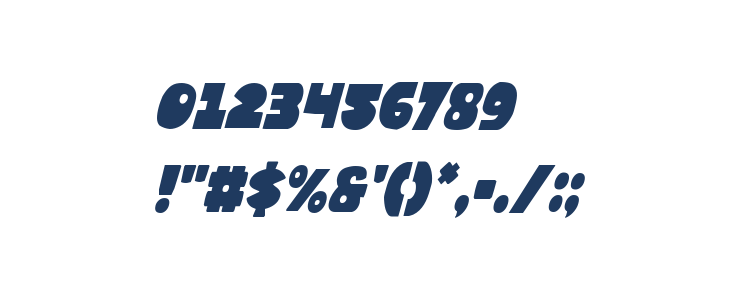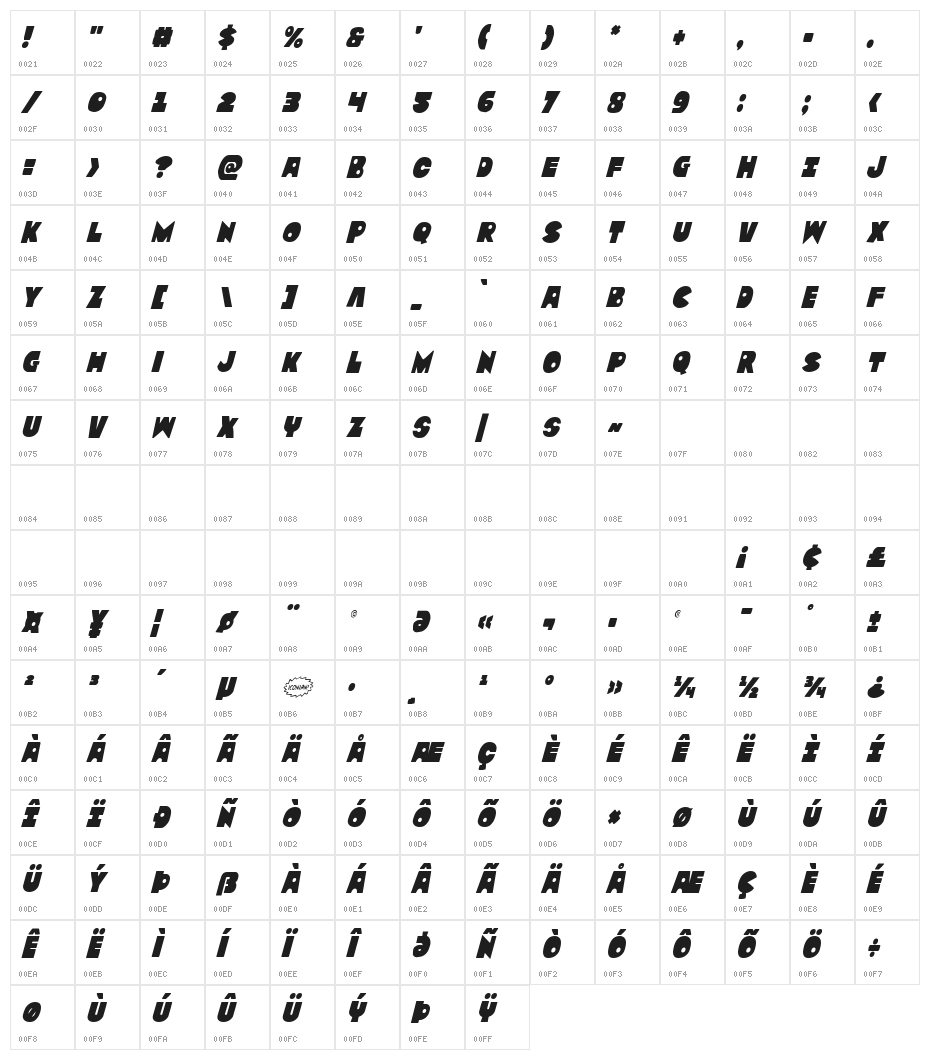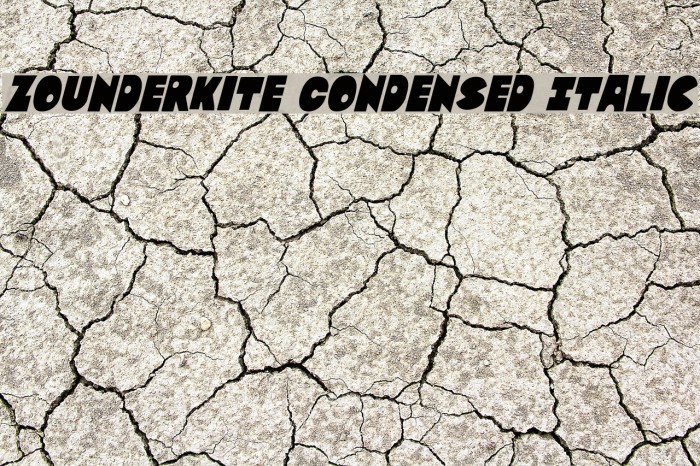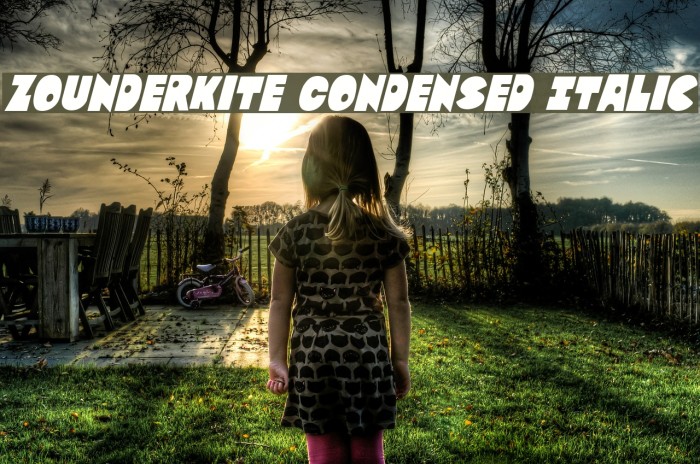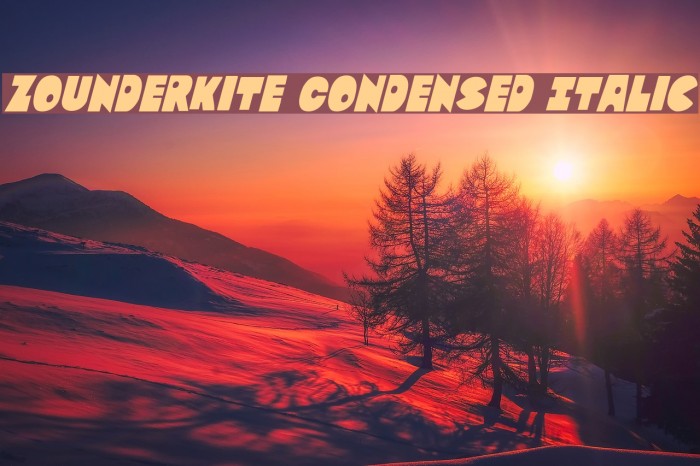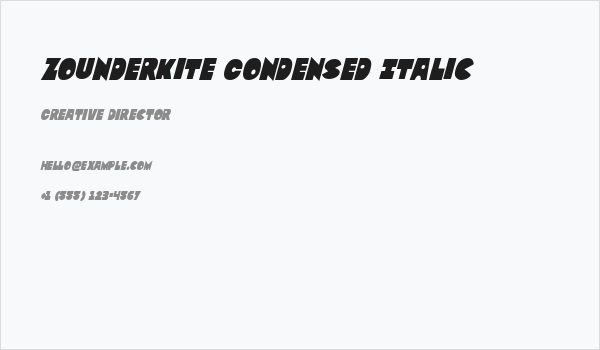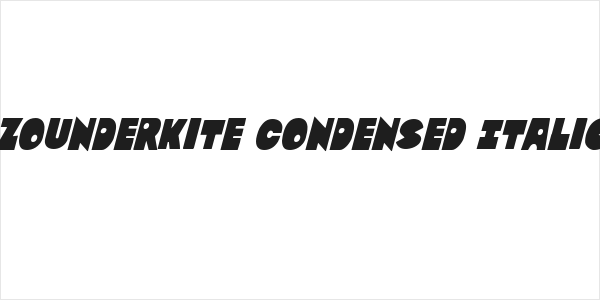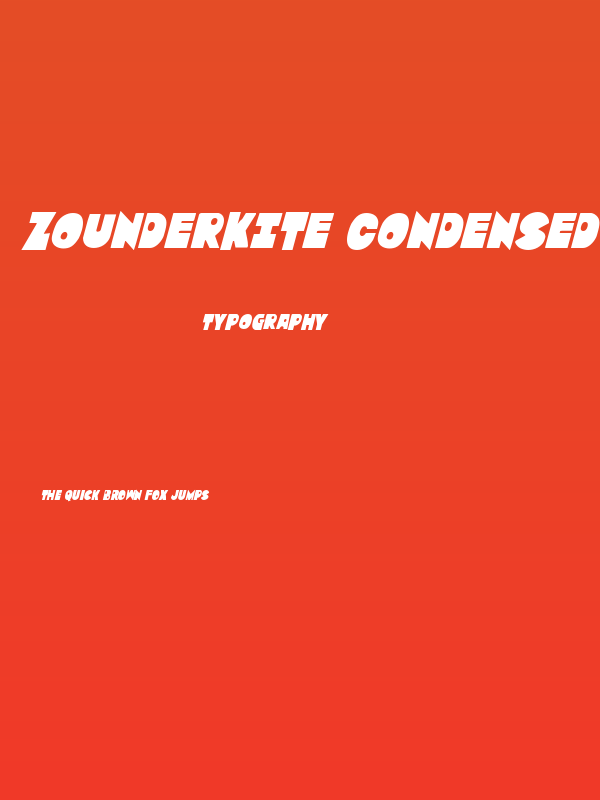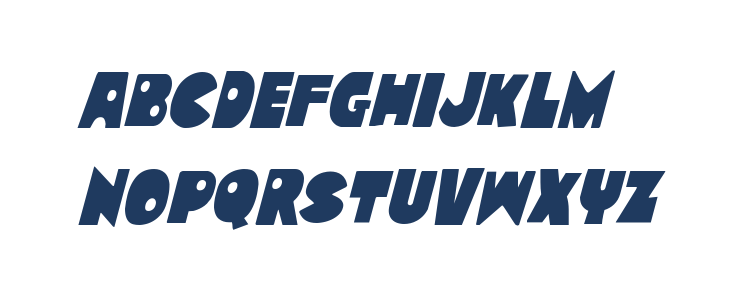
Zounderkite Condensed Italic Font
Zounderkite Condensed Italic Description
This font features a bold and dynamic style with a condensed and italicized form. The characters are thick and heavy, providing a strong visual impact. The design incorporates sharp angles and a slight slant, giving it a sense of movement and energy. The uppercase and lowercase letters maintain a consistent weight, while the numbers and special characters follow the same bold aesthetic. This font is ideal for creating attention-grabbing headlines and designs that require a powerful and modern look.